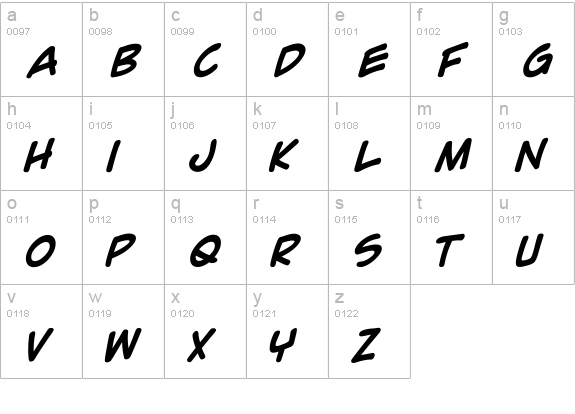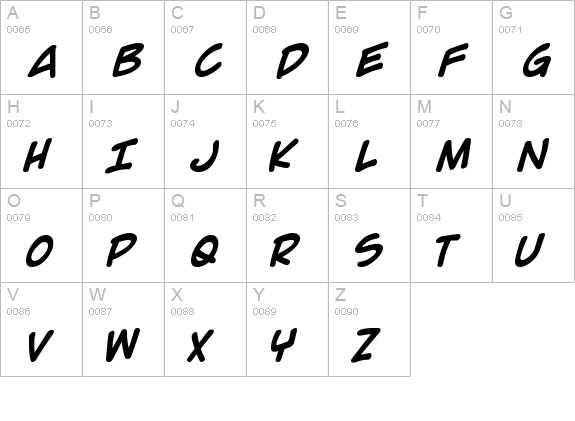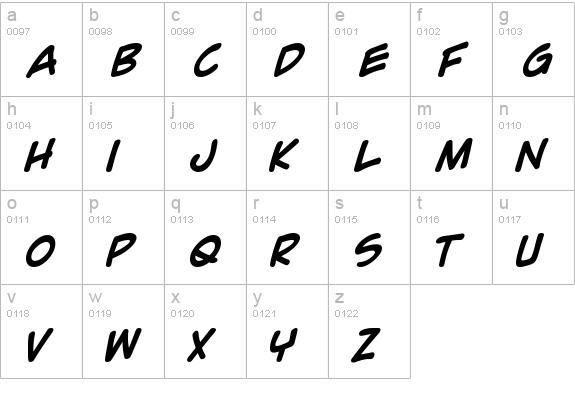
Comic Geek Bold Font Details
Comic Geek Bold is a strong, high-contrast variant in the Comic typeface family \xE2\x80\x94 well suited to headlines, attention-grabbing titles, and strong calls-to-action.
Introducing Comic Geek Bold font, the perfect choice for all your comic book and geeky design needs! This fun and playful font captures the essence of classic comic book lettering with a bold and dynamic style. Comic Geek Bold is ideal for adding a touch of whimsy and excitement to your projects, whether you're creating posters, flyers, logos, or social media graphics. Best of all, Comic Geek Bold is available for free download at FontsMarket.com! This means you can easily access this fantastic font and start using it in your designs right away. Don't miss out on the opportunity to add a burst of personality and charm to your creations with Comic Geek Bold font. Download it today and let your inner geek shine!